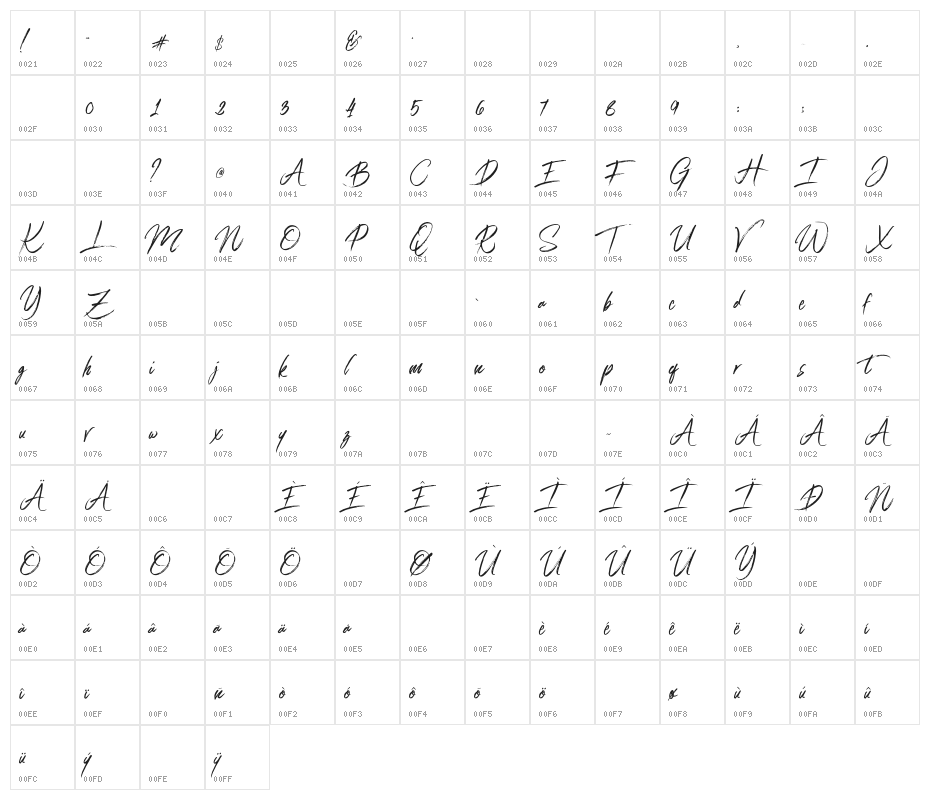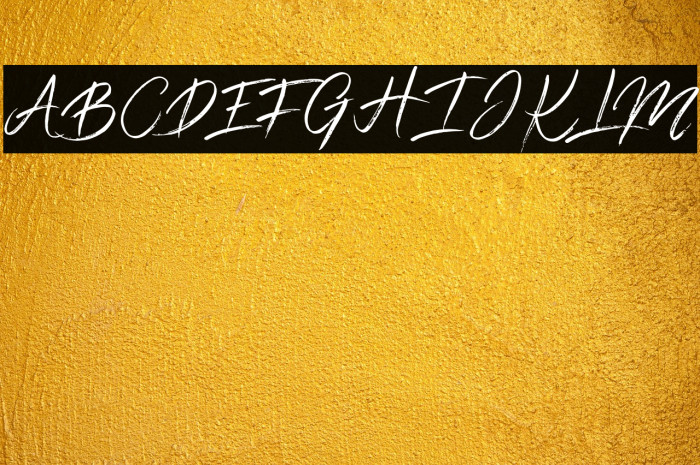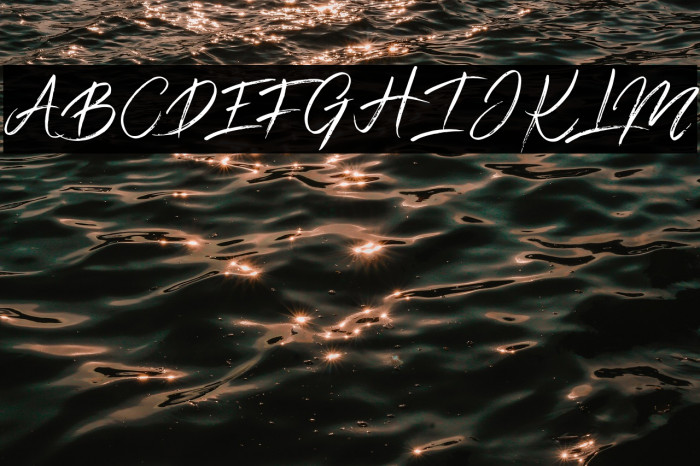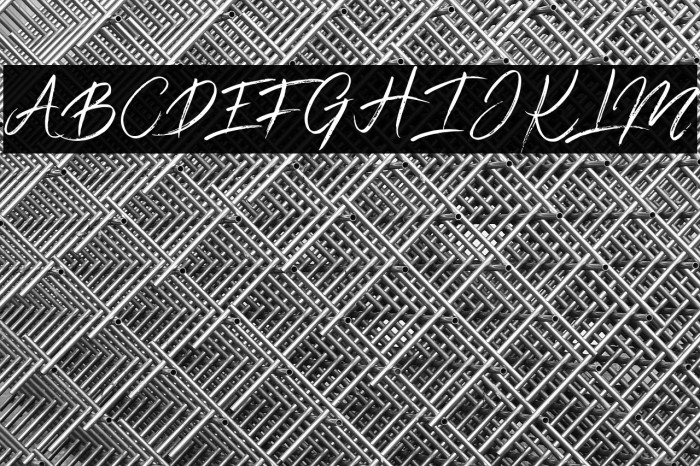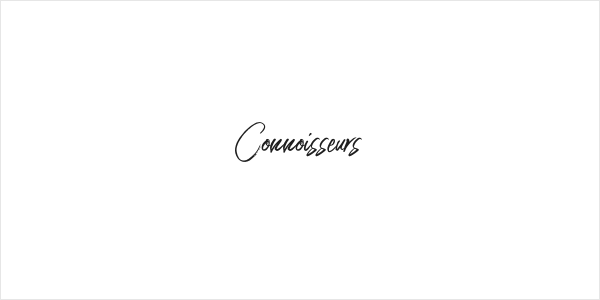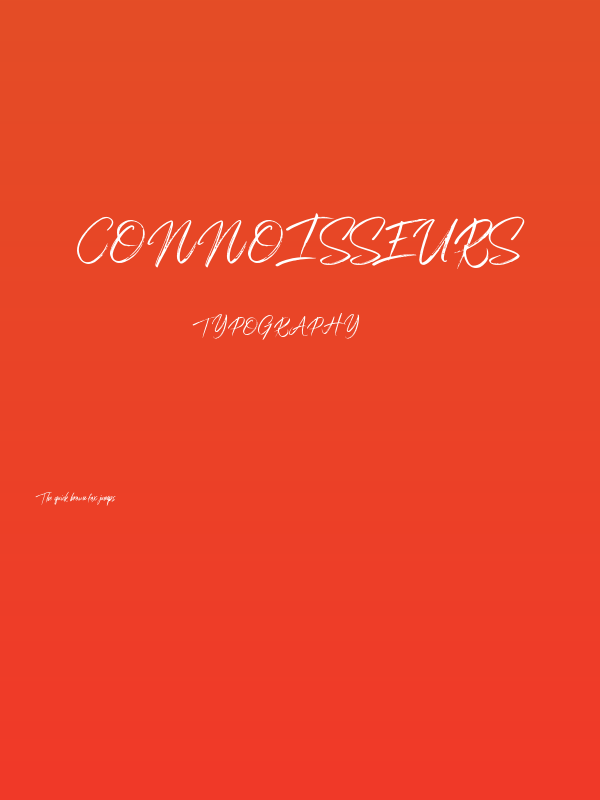
Connoisseurs Font
Connoisseurs Description
This font features a dynamic and expressive script style, characterized by its fluid and sweeping strokes. The letters exhibit a hand-drawn quality, with varying thickness that adds a sense of movement and energy. The uppercase letters are bold and prominent, while the lowercase letters maintain a consistent flow, enhancing readability. The numerals and special characters are designed to complement the overall aesthetic, ensuring a cohesive look across all elements. This font's artistic flair makes it suitable for creative and eye-catching designs.
Use CaseLogos, Headlines, Artistic designs
Proposed ProjectsIdeal for branding, invitations, greeting cards, and artistic posters.